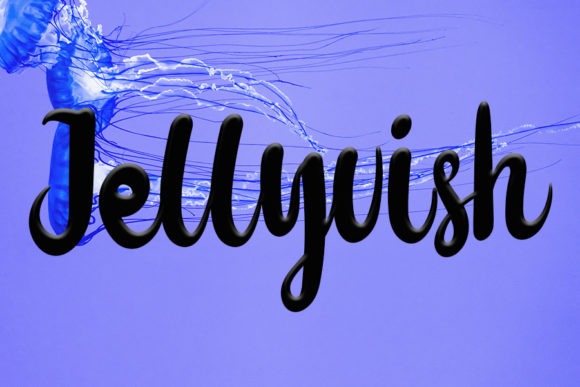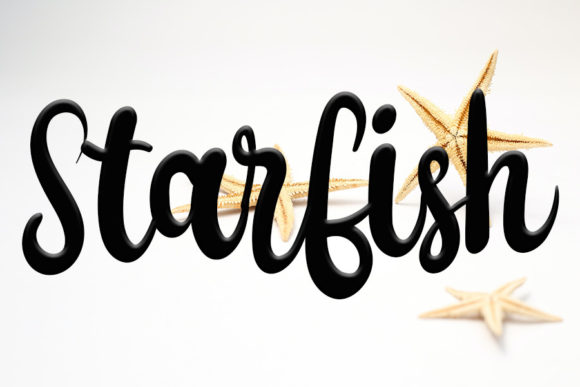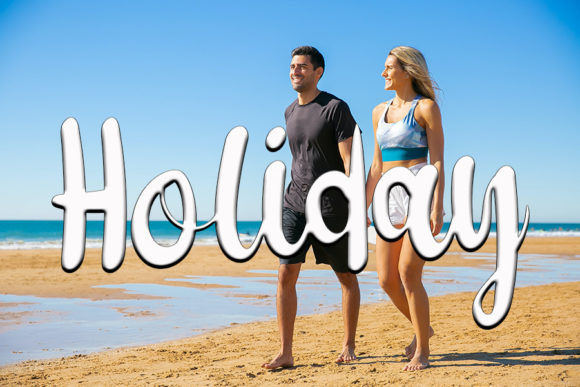
Introduction to Piranha Font
Imagine you’re working on a creative project, pouring your heart and soul into every detail, and then – the perfect font comes along and elevates it to a whole new level. This is exactly what happens when you discover the Piranha Font, a stunning handwritten font that effortlessly combines classic calligraphy with a modern twist.
Whether you’re a professional designer or a hobbyist, Piranha Font is an invaluable design resource that can add a touch of sophistication to any project. With its high-quality design and transparent background, this font is perfect for creating eye-catching graphics, logos, and even social media posts.
Key Features of Piranha Font
- Comes with a transparent background, allowing for seamless integration with various design elements.
- Features a unique, bold design that can add a touch of sophistication to any creative project.
- Can be easily customized and edited using various font editing software.
- Includes a comprehensive character set, including uppercase and lowercase letters, numbers, and punctuation marks.
Honest Review: Piranha Font
I recently stumbled upon the Piranha Font, a free download that caught my attention due to its unique design and versatility. As a designer, I appreciate high-quality fonts that can elevate a creative project, and this one delivers. The Piranha Font features a sleek, modern aesthetic that can work well in various design contexts.
Here are some aspects that I particularly like about the Piranha Font:
- ✨ Versatility: The font’s clean design makes it suitable for a wide range of creative projects, from digital graphics to print materials.
- ✨ High quality: The font’s resolution and sharpness are excellent, ensuring that it looks great on both screen and print.
- ✨ Transparent background: This feature allows for seamless integration with background images or colors, giving designers more flexibility in their designs.
However, I do have a few minor criticisms:
- ⚠️ Limited language support: While the font covers a decent range of languages, it may not be suitable for complex multilingual projects.
- ⚠️ Not suitable for very small text sizes: Due to its clean design, the font may become difficult to read at extremely small text sizes.
Overall, I’m impressed with the Piranha Font’s potential and versatility. It’s a great addition to any designer’s toolkit, especially for those working on creative projects that require a modern and sleek aesthetic.
Piranha Font
The Piranha Font is a high-quality design resource ideal for creative projects. It offers a unique and eye-catching style, making it perfect for various applications. With a transparent background, it’s easy to integrate into your designs.
Getting the Most Out of Piranha Font
To get the most out of the Piranha Font, use it in conjunction with other design elements to create a visually appealing design. Experiment with different font sizes, colors, and arrangements to achieve the desired look.
The Piranha Font is commonly used in creative projects such as logo design, infographics, and social media graphics. Its unique style makes it perfect for grabbing attention and conveying a message effectively.
Yes, the Piranha Font features a transparent background, making it easy to layer over images or use with other design elements. This feature is particularly useful for designers working on graphic design projects that require a high level of customization.